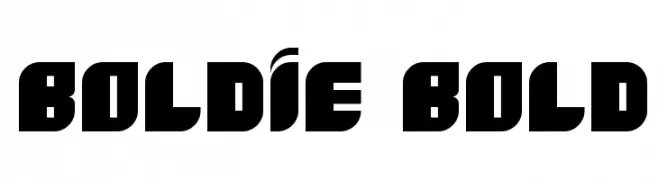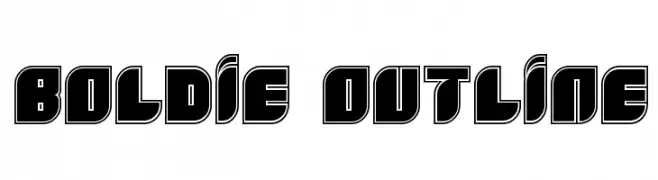
A bold, italicized font with a modern and dynamic style.
A bold, geometric outline font with a modern and impactful style.
A bold, geometric font with strong, block-like characters.
A bold, geometric font with a modern and futuristic style.
A bold, geometric font with a modern and clean aesthetic.
An elegant script font with flowing cursive style and intricate swashes.
An elegant, decorative script font with intricate swashes and flourishes.
A pixelated, retro-style font with a blocky, geometric design.
A bold, geometric font with angular forms and playful design elements.
A lively, cursive font with a hand-drawn calligraphic style.